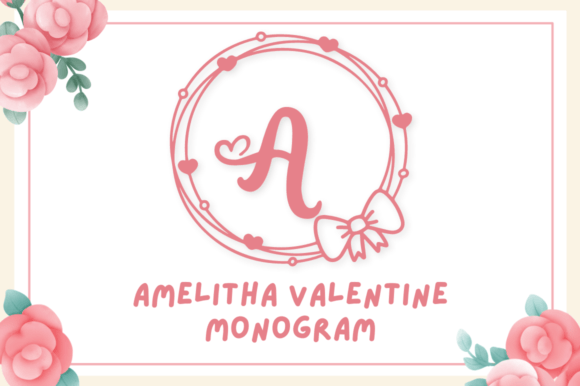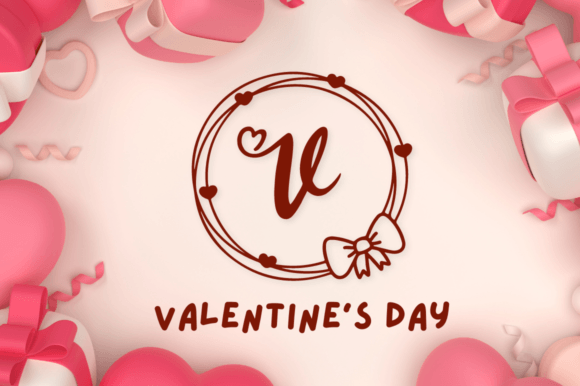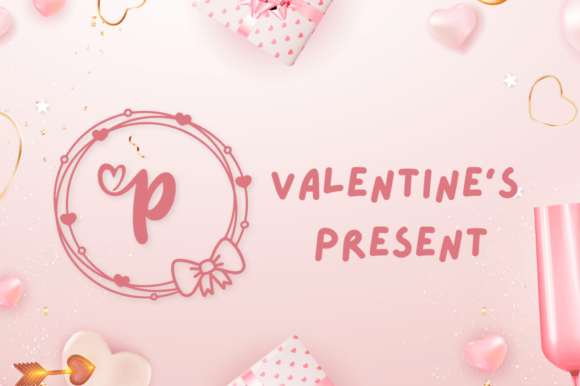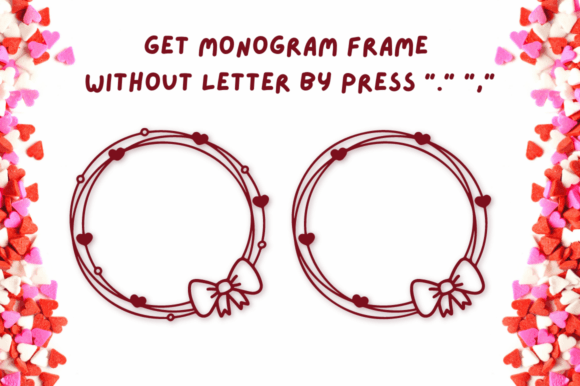
Amelitha Valentine Monogram Font
About the Amelitha Valentine Monogram Font
Elevate your designs with Amelitha Valentine Monogram Font, a font that combines sophistication with readability. Amelitha Valentine Monogram is a cute decorative font. Fall in love with beautiful lovely designs for your special occasions, business designs, logos, branding, social media posts, and wedding cards.
Comes in 2 styles.
Just simply change between uppercase and lowercase to see the different styles!
Amelitha Valentine Monogram Font Usage Examples
Amelitha Valentine Monogram Font Example